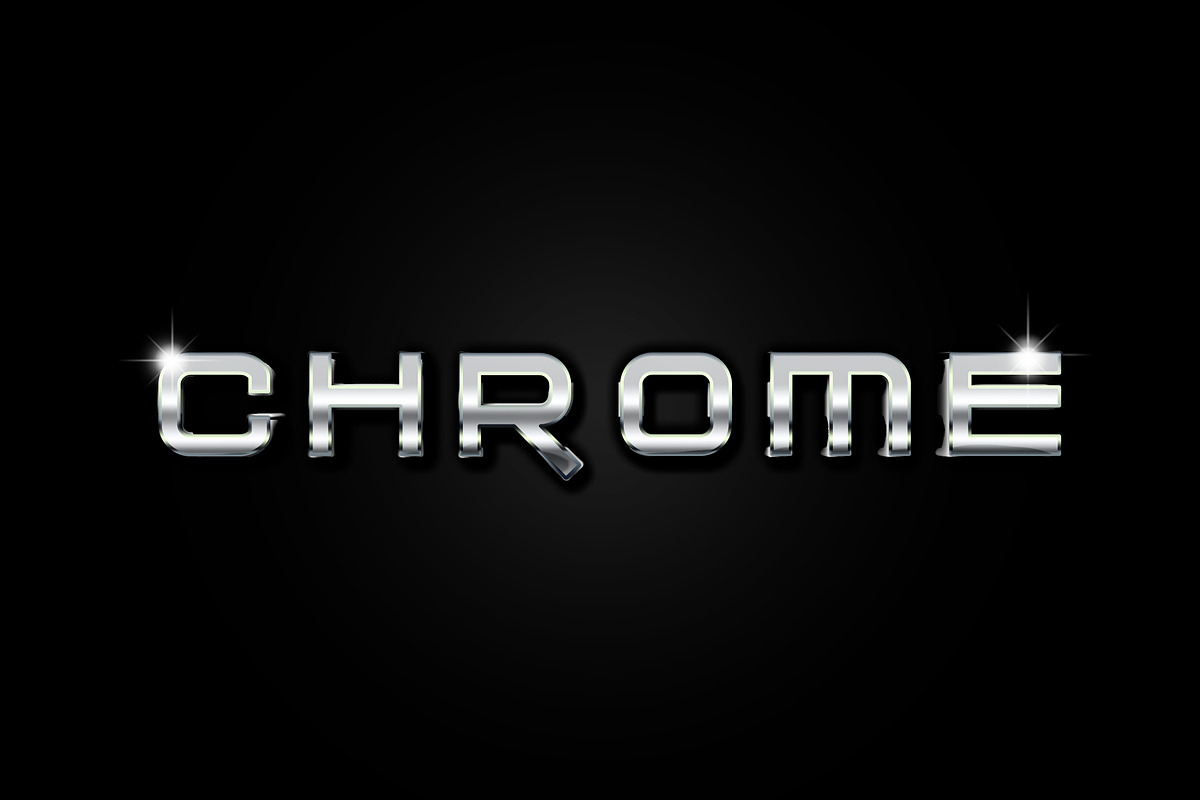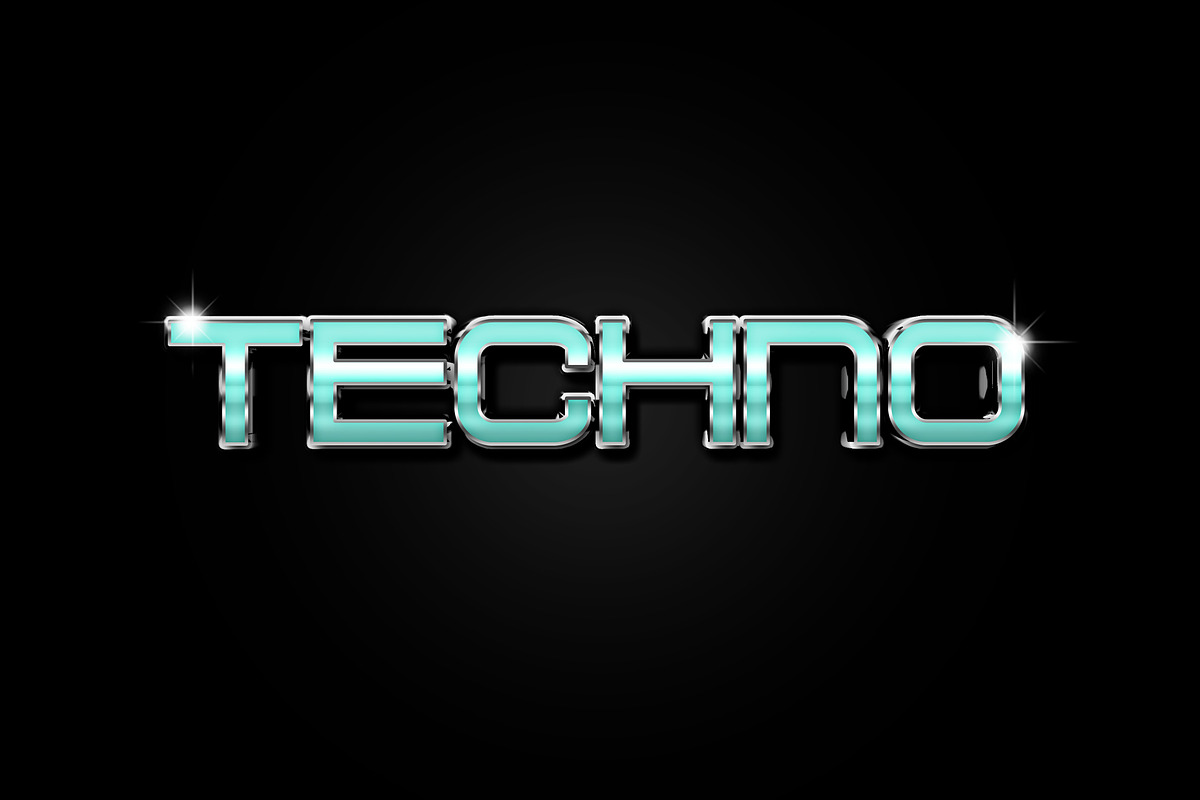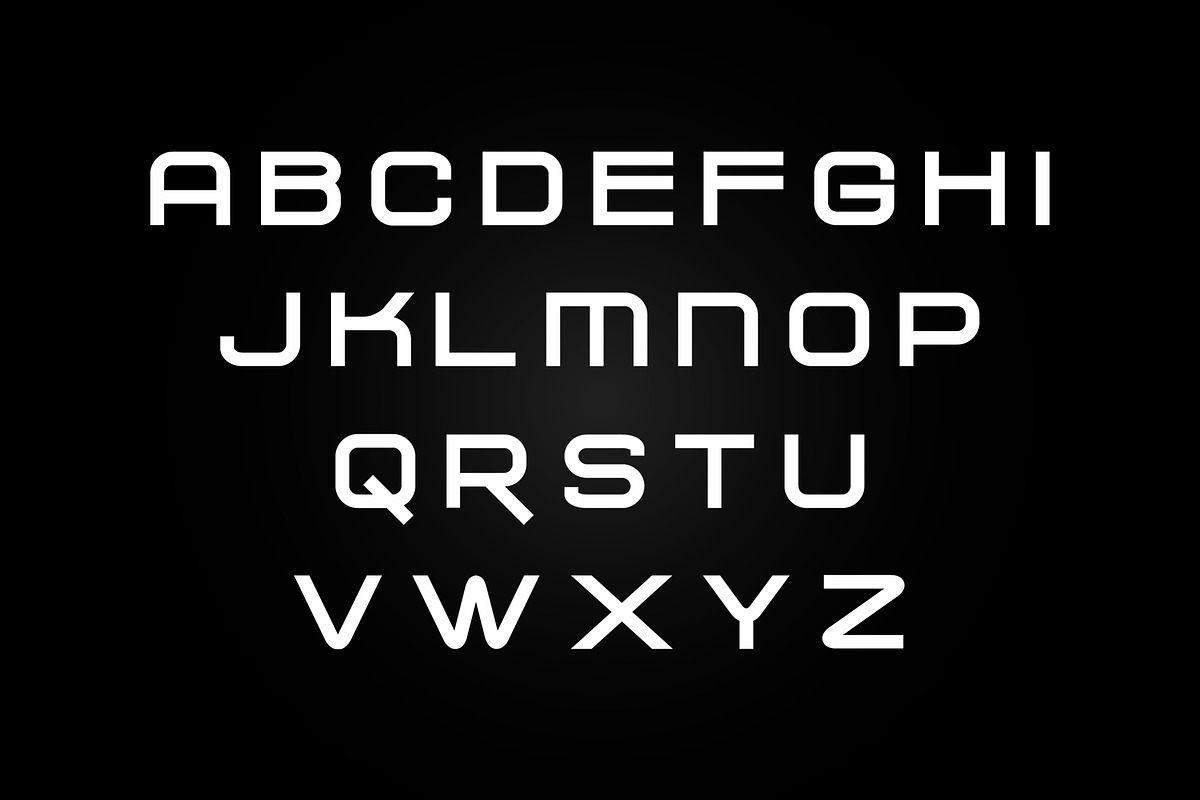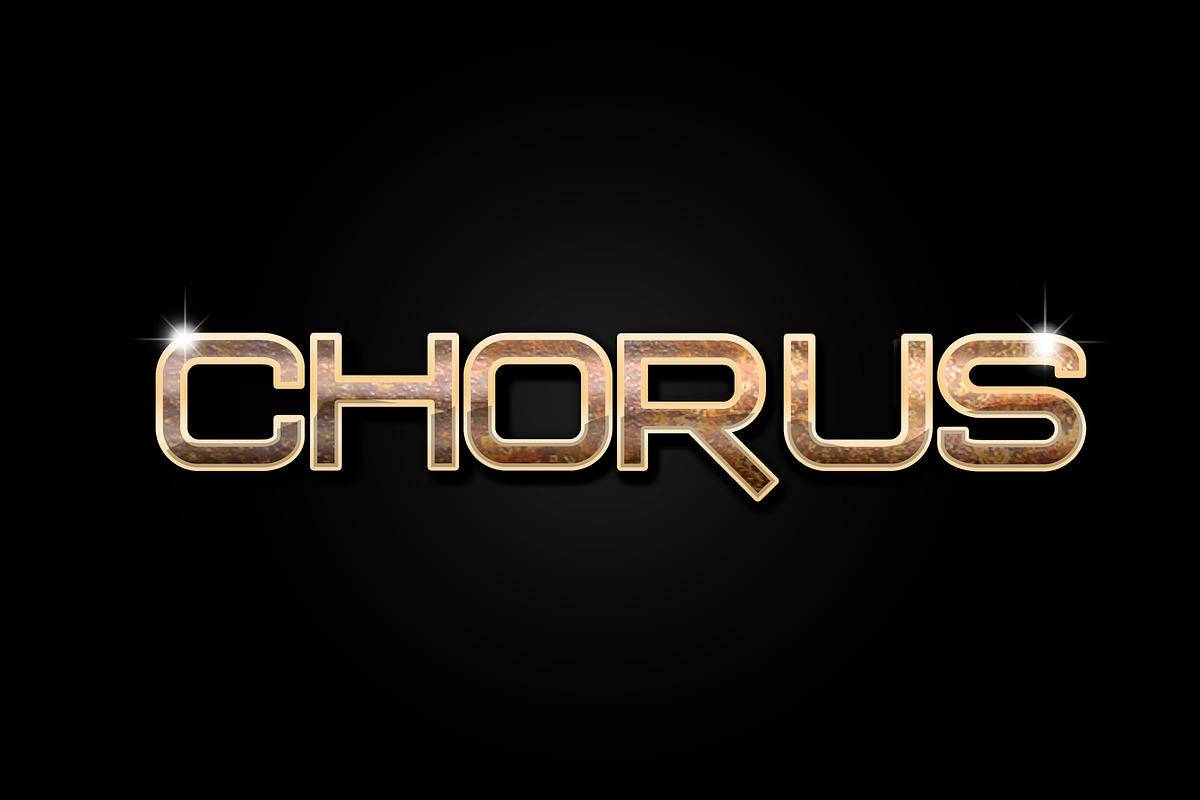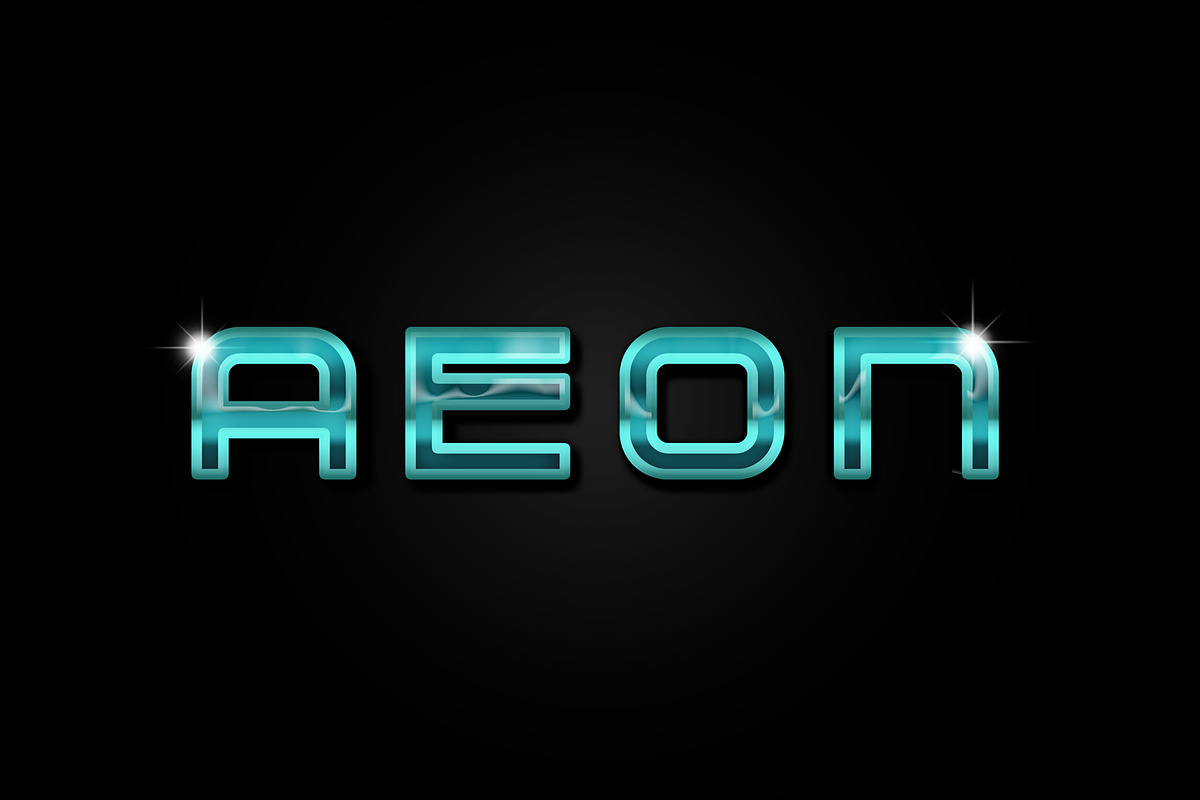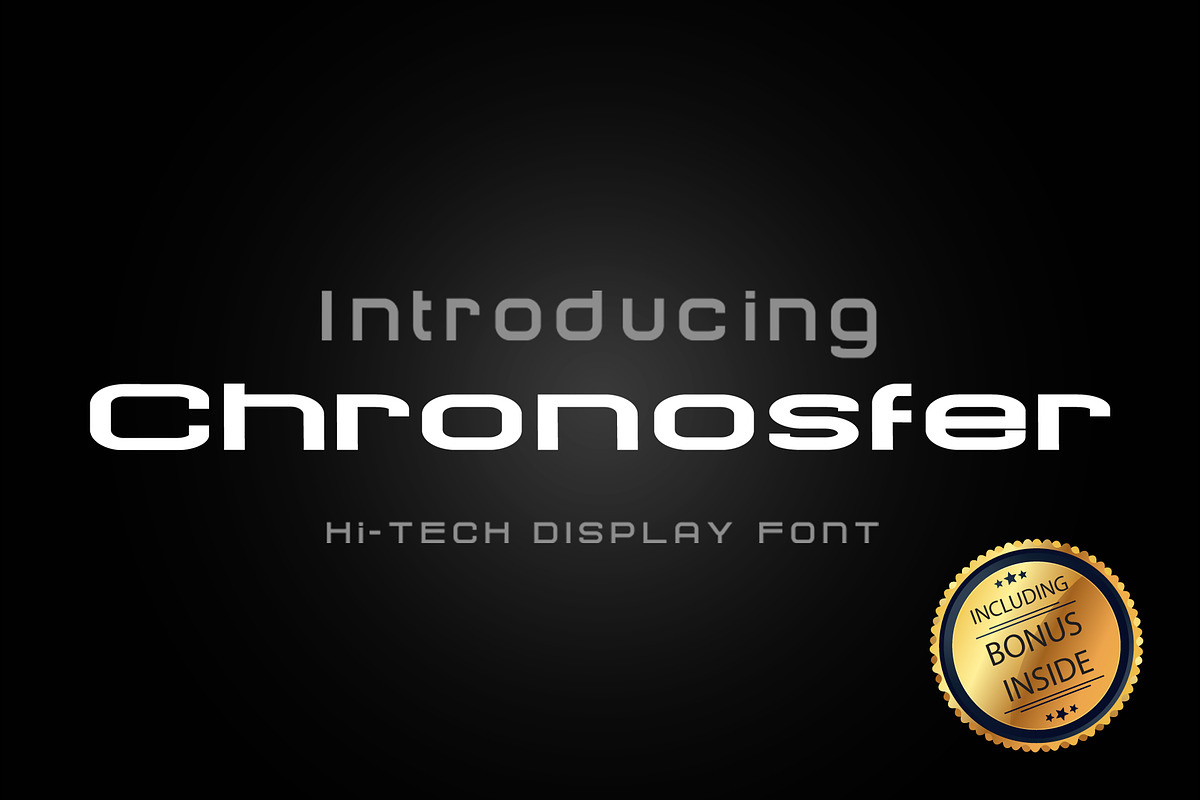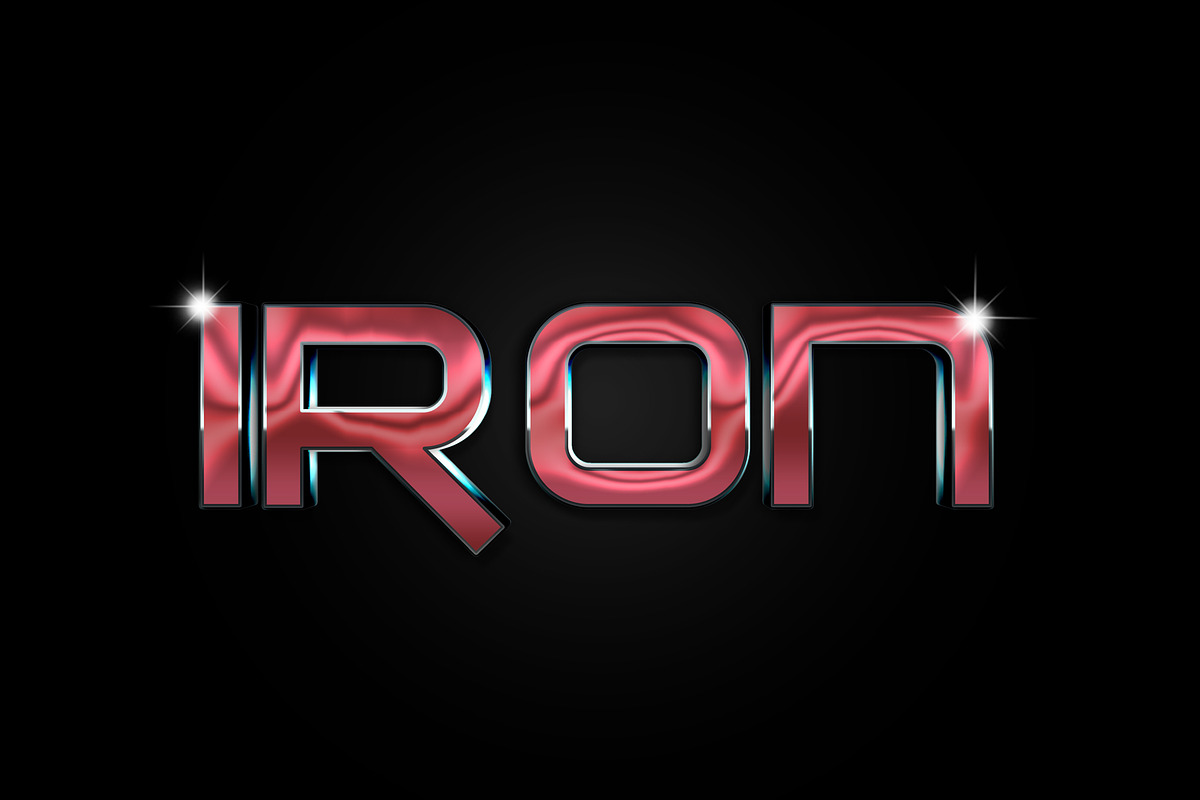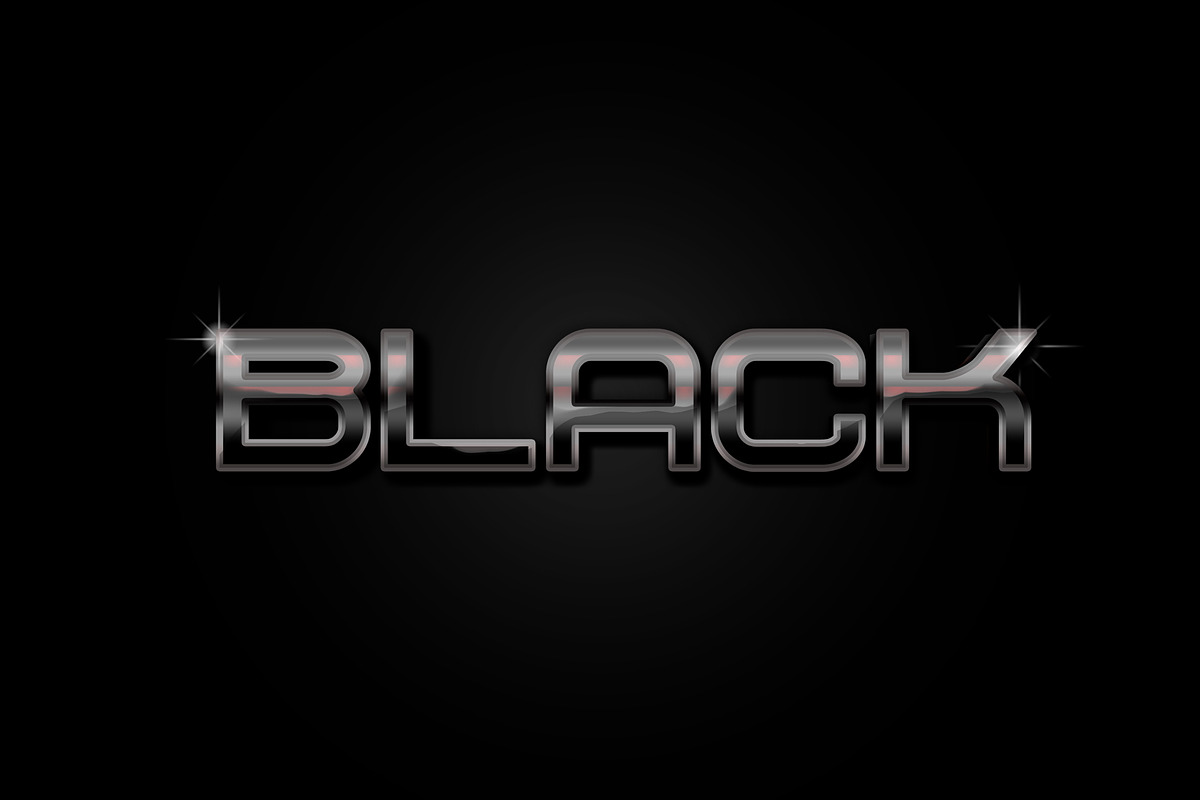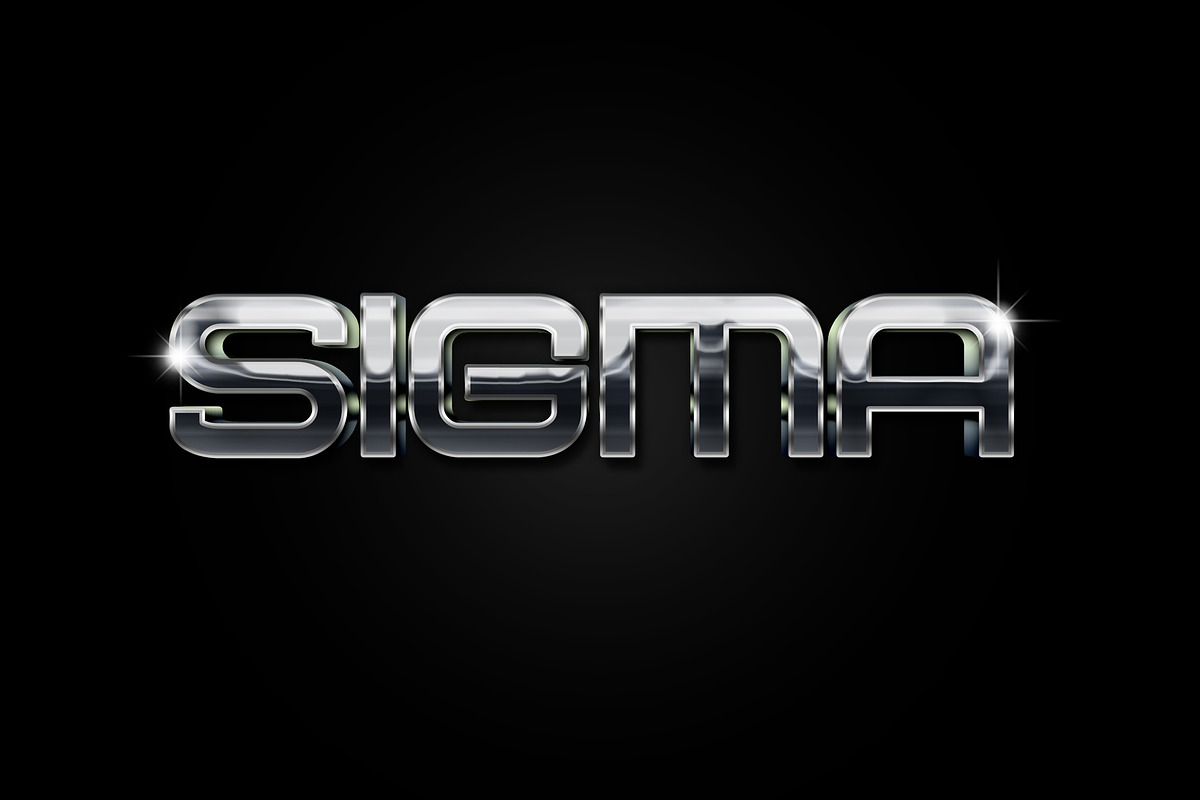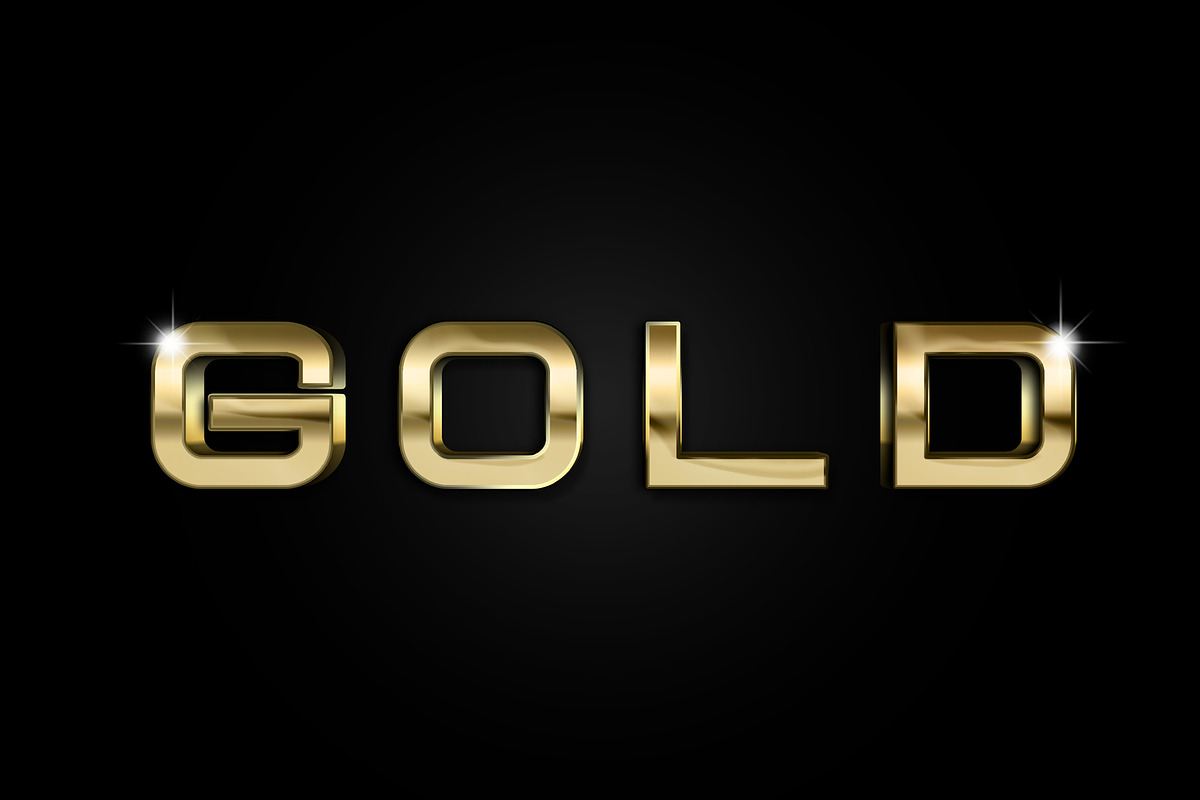
CHRONOSFER - Futuristic Space Galaxy
Introducing the CHRONOSFER, Hi-Tech Font Style, the ultimate digital font for all your modern design needs. This font is perfect for creating a sleek, contemporary look in any project. Whether you're working on a website, presentation, or graphic design project, Hi-Tech Font Style will add a touch of technology to your design.
The CHRONOSFER, Hi-Tech Font Style is a versatile font that can be used for various design projects, such as:
- Technology-related designs like software, apps, and websites.
- Futuristic and science fiction-related designs.
- Corporate and business designs, such as presentations and business cards.
- Modern and minimalist designs.
The CHRONOSFER, Hi-Tech Font Style is designed with precision and attention to detail, making it easy to read and highly legible. This font is also fully customizable, allowing you to adjust the size, spacing, and color to fit your design needs. With CHRONOSFER, Hi-Tech Font Style, you'll have access to a professional-quality font that will give your designs a cutting-edge look.